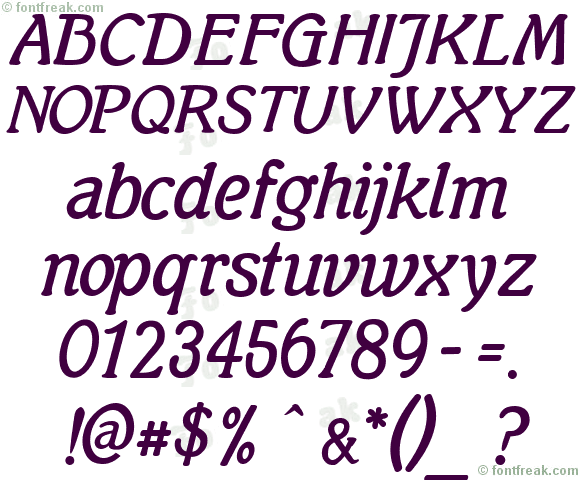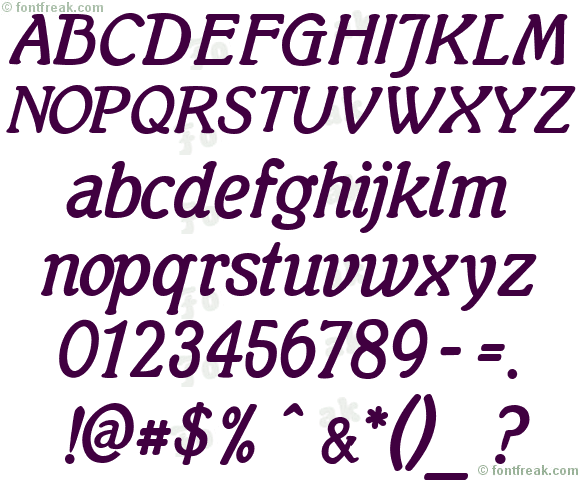
Mutter Krause Halbfett Bold
About Mutter Krause Halbfett Bold
Mutter Krause Halbfett Bold is a distinctive display font designed by Peter Wiegel, characterized as a serif typeface. It features a unique blend of traditional and modern elements, making it an excellent choice for various design projects. The font showcases a medium stroke weight with subtle contrast, giving it a robust presence while maintaining readability. The letterforms are well-spaced, allowing for clear legibility both in headings and body text. The decorative elements are minimal yet effective, adding a touch of elegance without overwhelming the overall design.
This font is particularly well-suited for a variety of creative applications. Its bold and confident appearance makes it ideal for wedding invitations, where it can convey a sense of formality and celebration. Additionally, Mutter Krause Halbfett Bold is perfect for movie posters, helping to capture attention and convey the thematic essence of the film. Restaurant menus can also benefit from this font, as it adds a sophisticated touch that enhances the dining experience. Finally, it serves well in branding materials for small businesses, providing a solid yet inviting identity.
What sets Mutter Krause Halbfett Bold apart is its harmonious balance between classic serif features and modern flair. This font not only stands out visually but also carries a sense of personality, making it an excellent choice for those looking to add a unique touch to their designs. For anyone interested, the Mutter Krause Halbfett Bold font free download is readily available, inviting users to explore its potential.
Author Peter Wiegel